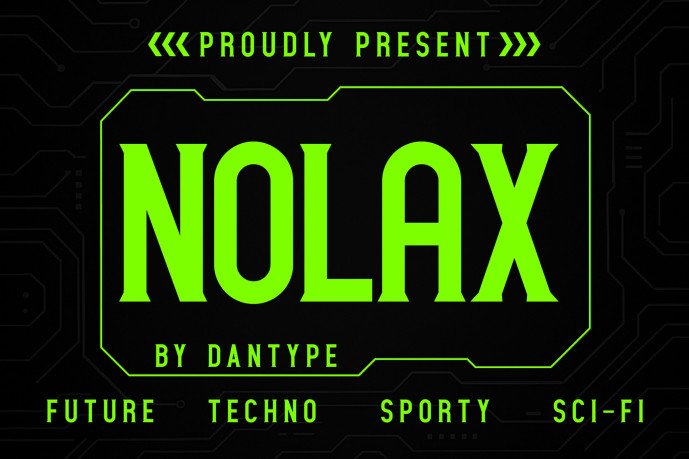
Nolax Serif Font
Designer: dantype
Nolax Serif Font is a futuristic display font designed with a sporty techno edge. Its bold and sharp letterforms bring a sense of speed, strength, and modern innovation. Perfectly suited for sci-fi titles, esports branding, technology logos, poster headlines, and digital-themed projects. With its clean geometry and powerful presence, NOLAX delivers a strong futuristic vibe while maintaining versatility for creative designs.